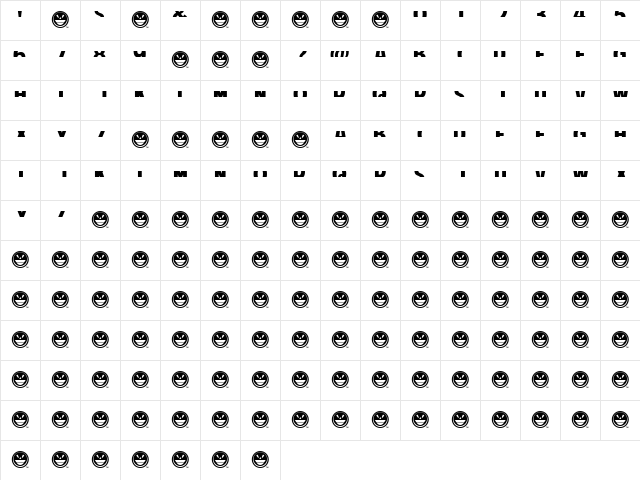
American Purpose STRIPE 1 Bold
Design Context for American Purpose STRIPE 1 Typeface
American Purpose STRIPE 1 is a composed and adaptable typeface that performs quietly and consistently across a wide range of design contexts. The heavy weight commands attention and anchors typographic hierarchies.